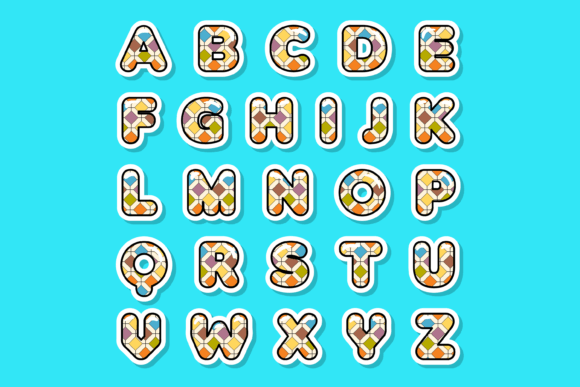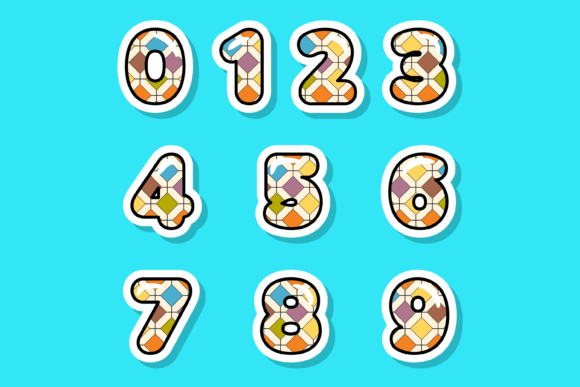
Introduction to Deco Grid Font Font
Fonts play a crucial role in design, and the Deco Grid Font font is a typeface that brings both character and versatility to any project. Whether you’re working on a branding project, a website, or a print design, the Deco Grid Font font offers a unique style that can elevate your work.
Deco Grid is an incredibly cool color font.
Whether you use it for custom designs, DIY crafts, or just any creation that requires a lovely touch, this font will be an amazing choice Note.
Key Features of Deco Grid Font Font
Why Choose Deco Grid Font Font?
The Deco Grid Font font is more than just a typeface – it’s a design tool that helps you communicate your message with style and clarity. Its unique character set and versatile design make it suitable for a wide range of applications, from elegant invitations to bold headlines.
With its carefully crafted letterforms and balanced proportions, the Deco Grid Font font ensures readability and visual appeal across all mediums.
What makes Deco Grid Font font special?
The Deco Grid Font font stands out with its unique design, exceptional readability, and versatility across various design applications.